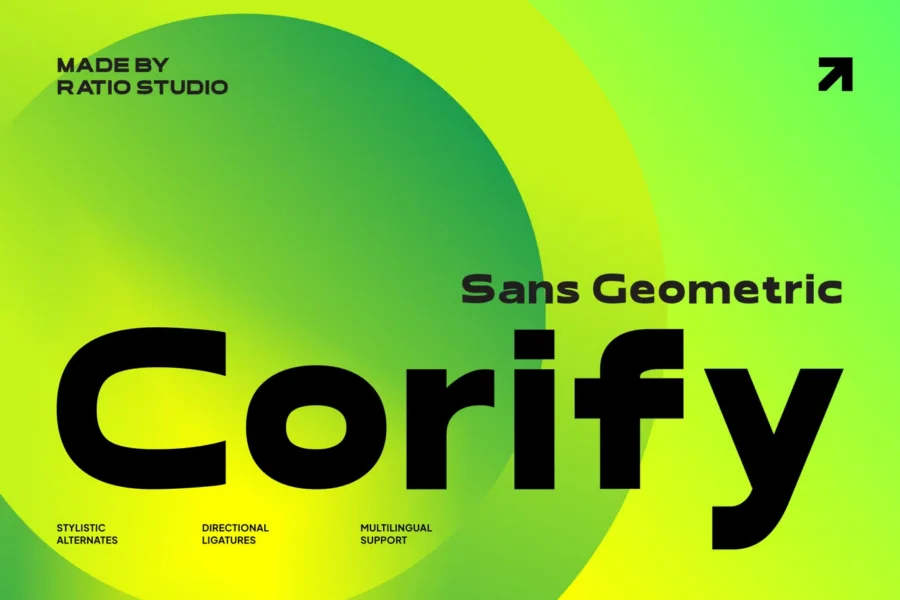
Corify Geometric Sans Serif Font
Corify is a bold geometric sans serif font designed with precision, versatility, and a strong modern aesthetic. Its clean construction and innovative alternate forms make it ideal for both digital and print use. Featuring unique directional ligatures and a futuristic visual tone, Corify merges functional design with experimental geometry to create a striking and adaptable type system.
Relevance and Use Cases is perfect for branding identity, technology startups, editorial headlines, website UI, motion graphics, packaging design, modern advertising, and professional creative projects that emphasize clarity and innovation.
Main Features
Stylistic Alternates
Directional Ligatures
Diacritics & Multilingual Support
Empower your design with Corify — a geometric sans that unites precision, modernity, and bold visual strength in one powerful typeface.
CORIFY GEOMETRIC SANS SERIF FONT